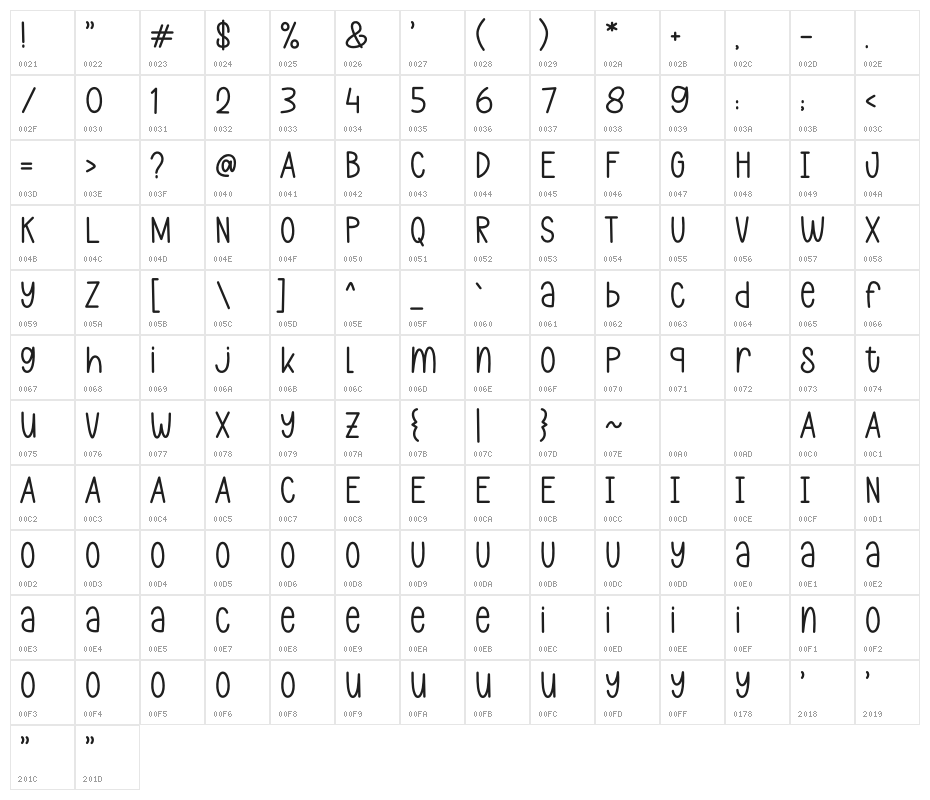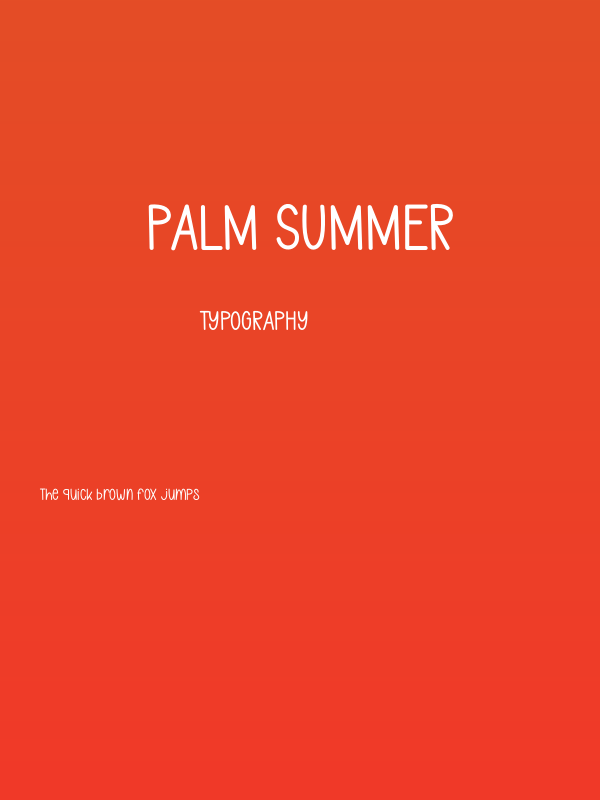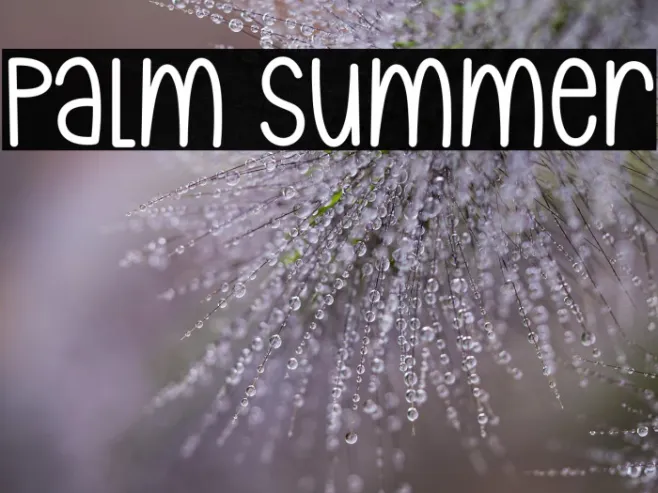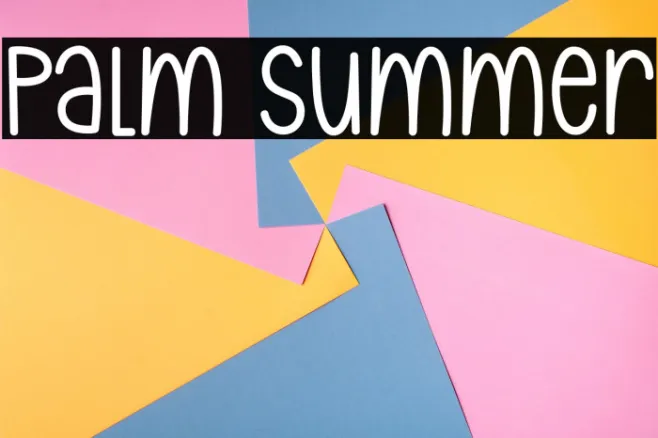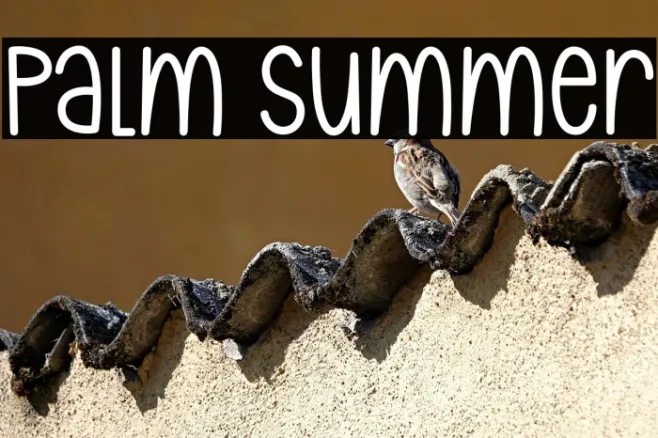
Palm Summer Font
Palm Summer Description
This playful and whimsical font features rounded, smooth edges and a casual handwritten style. The characters are evenly spaced with a consistent stroke width, giving it a friendly and approachable appearance. The uppercase and lowercase letters maintain a uniform height, contributing to its legibility. The numbers and special characters are crafted with the same playful aesthetic, making it suitable for a variety of creative projects. Its simplicity and charm make it ideal for designs that aim to convey warmth and friendliness.
| Proposed Projects | Ideal for children's books, greeting cards, playful branding, and casual invitations. |